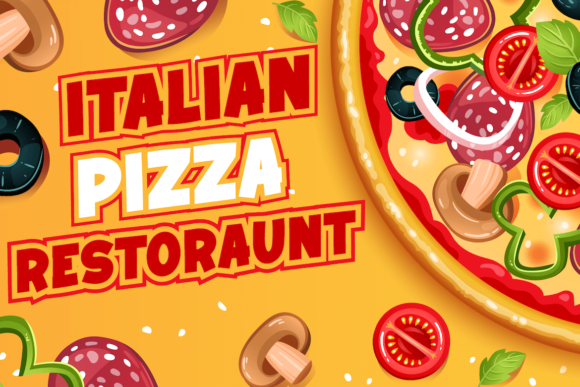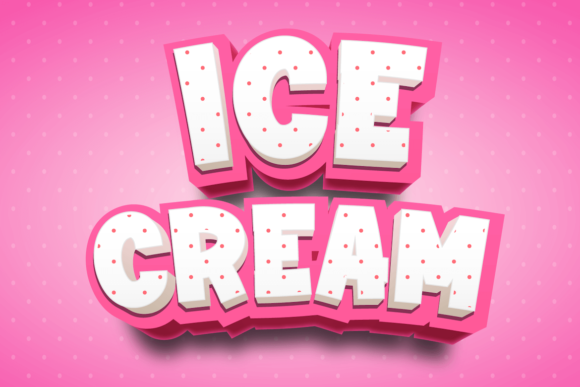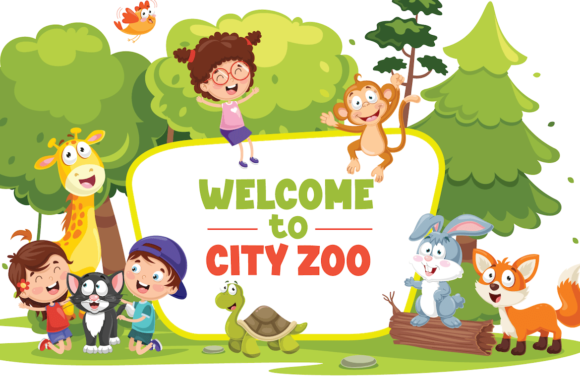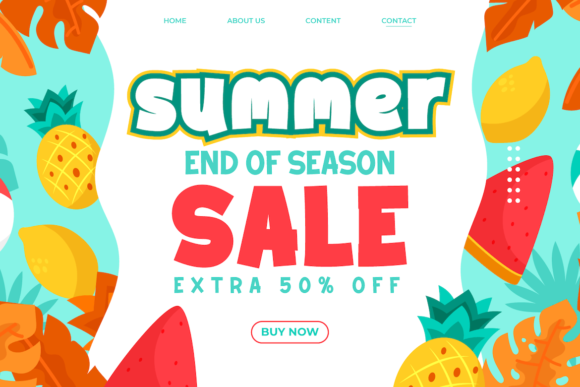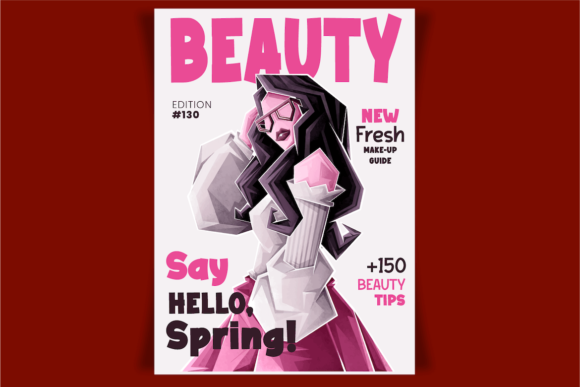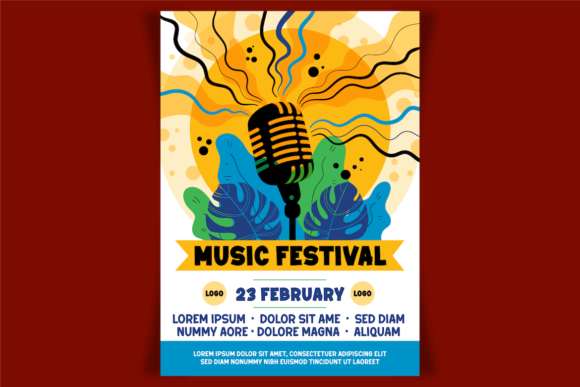
Discover Your Next Design Companion: Artho Font
Have you ever been working on a project, staring at a blank canvas, trying to find that elusive spark that brings your idea to life? It’s a moment we’ve all experienced, and it’s precisely in these moments that a well-chosen font can be the difference between a good design and a great one.
Enter Artho Font, a bold and thick lettered display font that’s sure to capture attention and elevate your creative endeavors. With its versatility and unique character, Artho Font is the perfect addition to any font library, capable of enhancing a wide range of topics and themes.
As a designer, you know how crucial the right font can be in conveying your message and setting the tone for your project. Artho Font’s value lies in its ability to add a touch of sophistication and visual interest, making it an invaluable asset for any designer looking to take their work to the next level.
Artho Font Key Features
- Font Family: Artho Font is a unique, high-quality font family with a wide range of styles, including bold, italic, and regular.
- Unique Characteristics: The font features a distinctive, hand-drawn aesthetic with intricate details and subtle texture, making it perfect for creative and artistic designs.
Designer Review: Artho Font
As a designer, I was excited to try out the Artho font. Here’s my honest review.
- Unique aesthetic: Artho font has a distinctive, hand-drawn feel that sets it apart from more traditional fonts.
- Legibility: The font is surprisingly easy to read, even at smaller sizes.
- Customization options: Artho font comes with a range of weights and styles, making it versatile for different design projects.
- Not ideal for body text: While Artho font works well for headings and titles, it’s not the best choice for large blocks of body text.
- May require adjustment: Depending on the project, you may need to adjust the font size or line height to get the best results.
- Limited language support: Artho font may not be optimized for languages with complex scripts or typography.
Overall, I think Artho font is a great addition to any designer’s toolkit. While it may have some limitations, its unique aesthetic and customization options make it a great choice for certain design projects. With a little experimentation and adjustment, Artho font can be a valuable asset in your design workflow.
Some tips for getting the most out of Artho Font include:
- Use Artho Font to create bold headings and titles.
- Combine Artho Font with other fonts to create a unique and visually appealing design.
Alternatives to Artho Font for Designers
Montserrat is a sans-serif typeface designed by Julieta Ulanovsky. It is a popular choice for designers due to its clean and modern look. Use Montserrat when you need a font that is easy to read and has a strong urban feel. Montserrat is more geometric than Artho Font, making it a better choice for digital applications and headlines.
Open Sans is a modern sans-serif typeface designed by Steve Matteson. It is highly legible and suitable for a wide range of applications. Use Open Sans when you need a font that is clean, simple, and easy to read. Open Sans is more neutral than Artho Font, making it a better choice for body text and corporate communications.
Lato is a sans-serif typeface designed by Łukasz Dziedzic. It is a highly versatile font that works well for both digital and print applications. Use Lato when you need a font that is elegant, modern, and has a strong emphasis on readability. Lato is more rounded than Artho Font, making it a better choice for branding and creative projects.